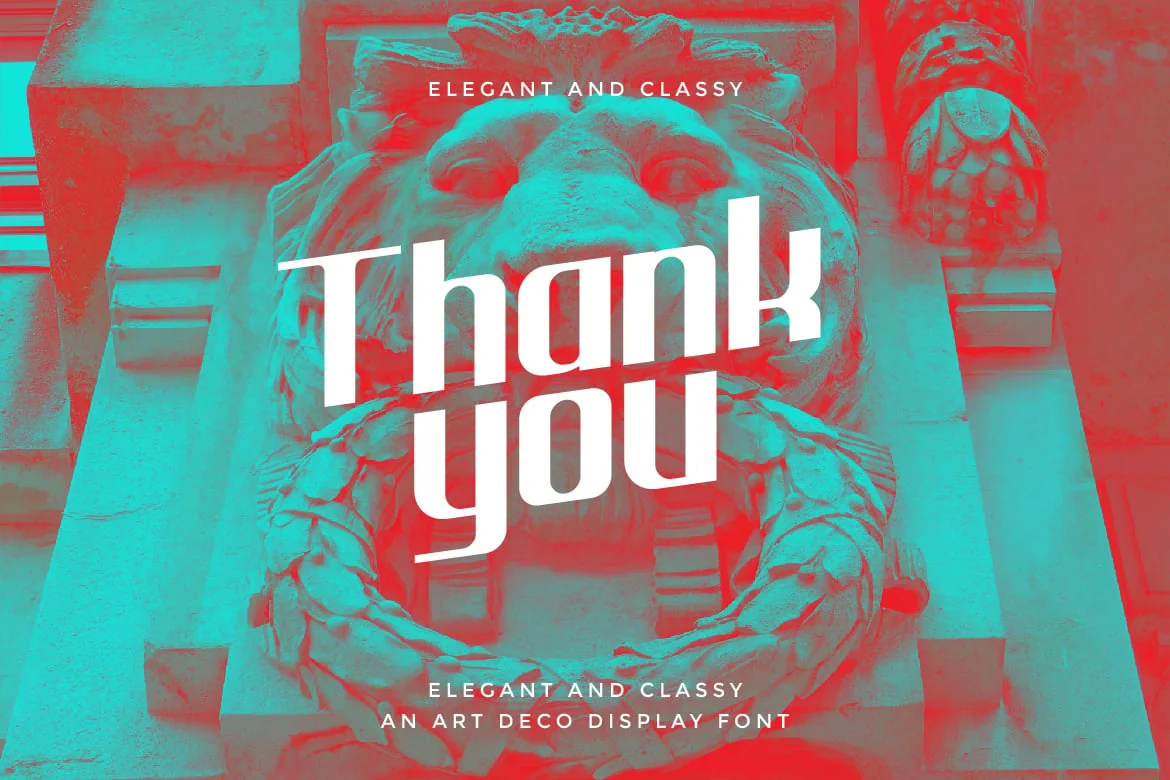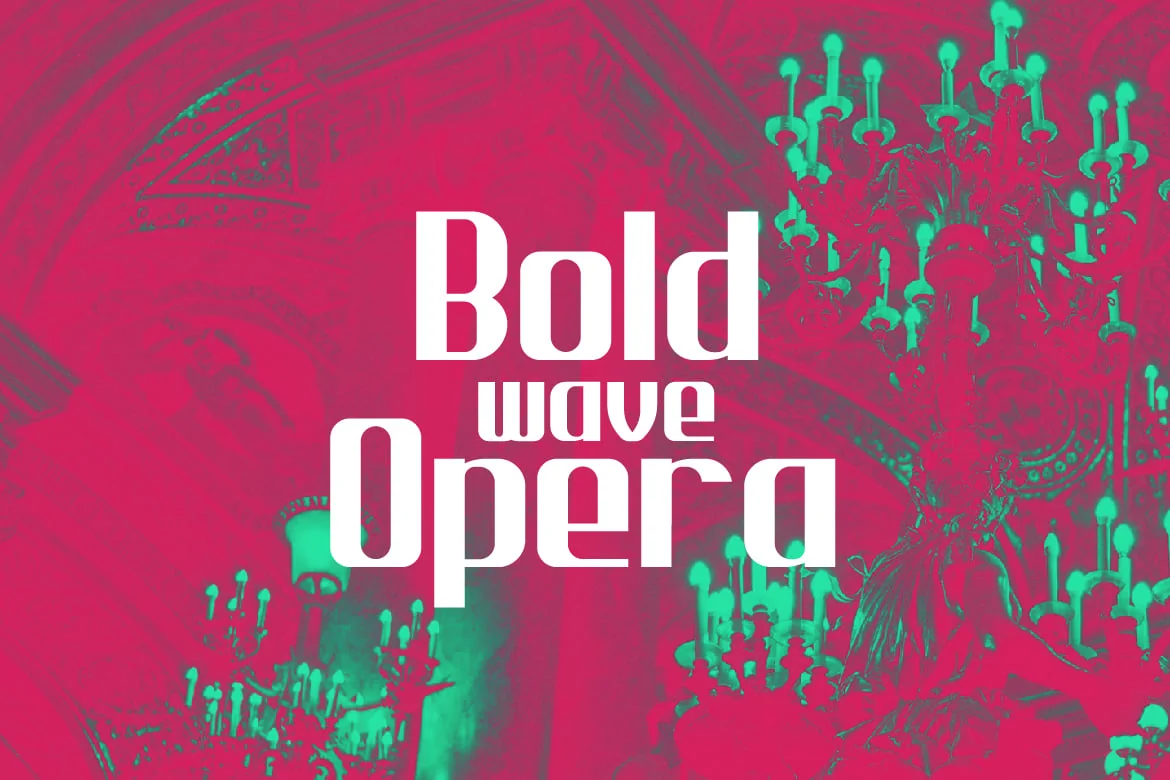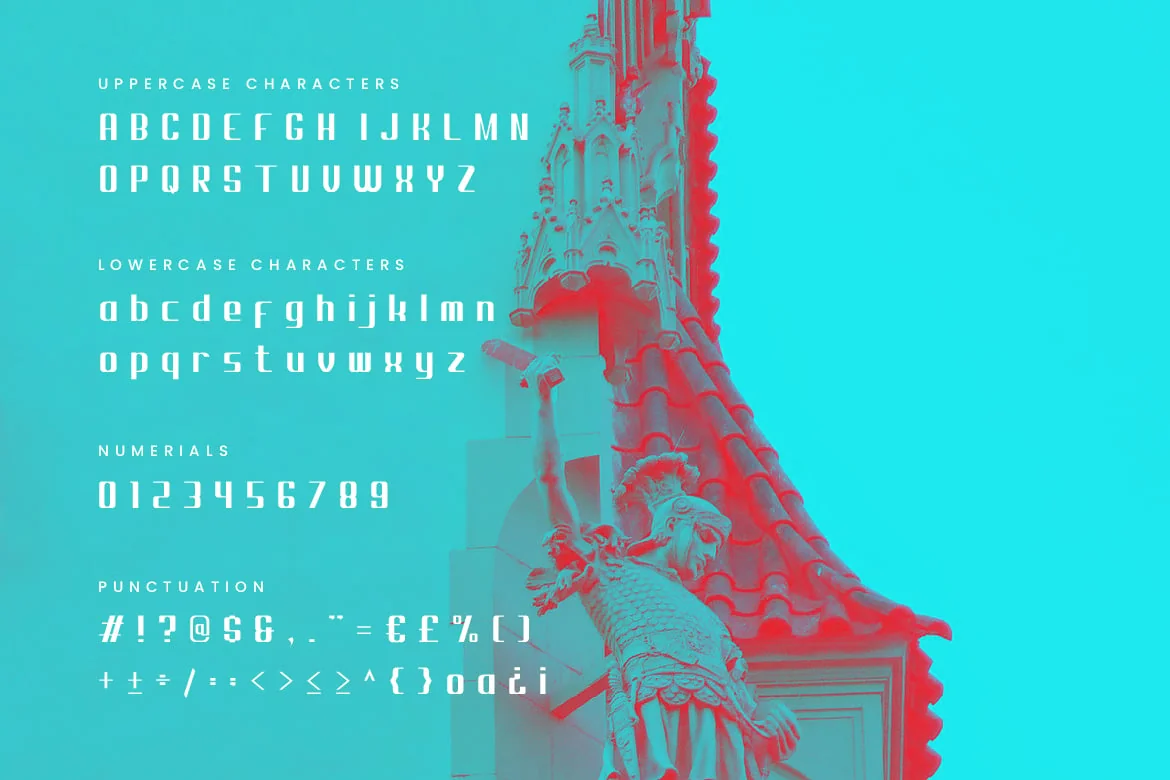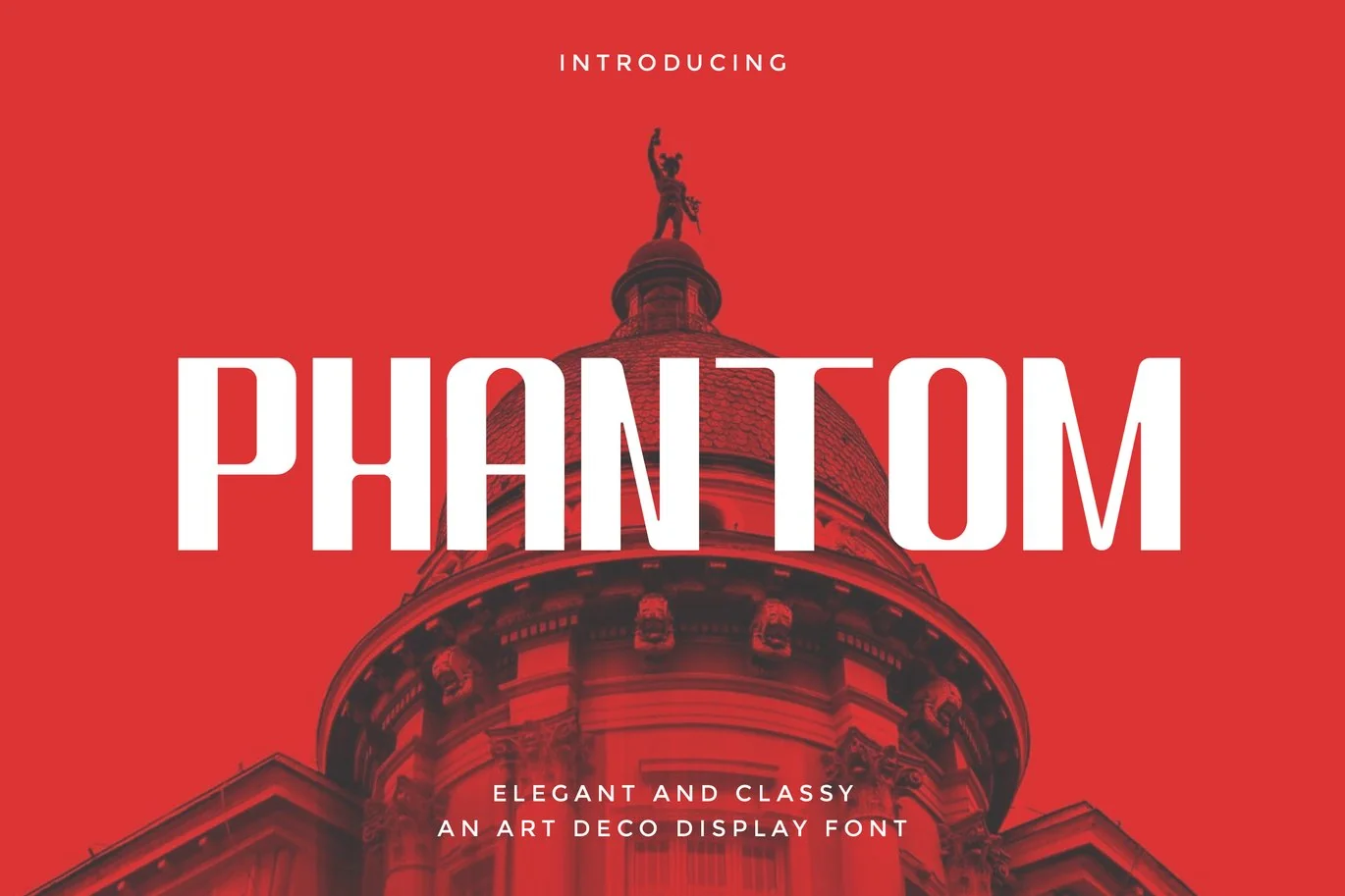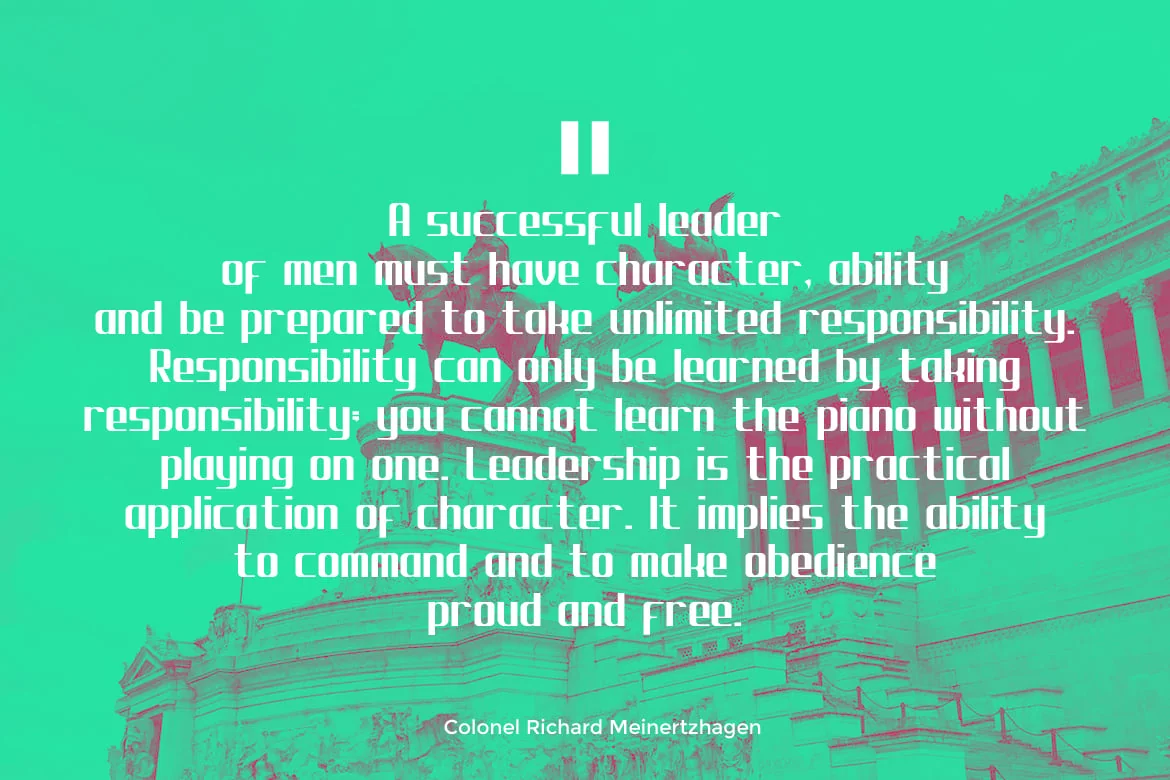
Phantom – Art Deco Display Typeface
Introducing Phantom font. Are you looking for a bold and solid art deco display font that has a vintage feeling? We can help! Try to download our phantom font. The font is suitable to use for many occasion such as invitation, banner, movie title, brand, event, and many more π